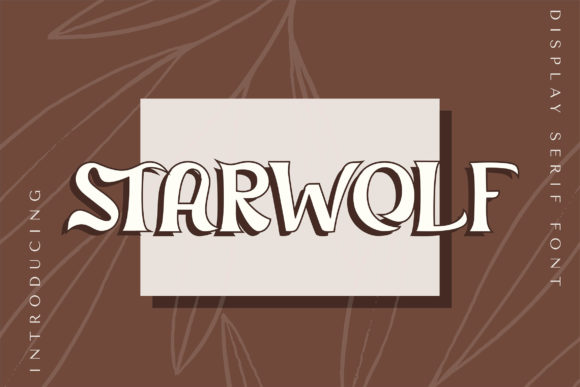
Embark on a typographic odyssey with Starwolf, the display font that exudes coolness and chicness. This font will be a dazzling companion for your creative journey, ready to transform your designs into captivating masterpieces.
Starwolf's PUA encoding grants you effortless access to a vast array of glyphs and swashes, unlocking endless possibilities for customization. With Starwolf, your creative expression knows no bounds.
This font is more than just a collection of characters; it's a gateway to a world of captivating designs. Whether you're crafting logos, posters, social media graphics, or simply adding a touch of flair to your presentations, Starwolf will elevate your creations to new heights.
Imagine your words dancing across the page, imbued with the distinctive personality of Starwolf. Its sharp edges and dynamic curves command attention, while its balanced proportions ensure readability. Starwolf is not just a font; it's a statement of style, a reflection of your unique aesthetic.
With Starwolf, you'll discover a font that's as versatile as it is captivating. Its adaptability shines in a multitude of contexts, from modern and minimalist designs to bold and unconventional projects. Starwolf effortlessly complements your creative vision, seamlessly�入ing itself into any design landscape.
Join the ranks of discerning designers who have embraced Starwolf's allure, harnessing its power to create designs that leave a lasting impression. Starwolf is not just a font; it's an investment in your creative arsenal, a tool that will empower you to consistently produce stunning visuals.
As a designer, you're always seeking that one font that can transform your vision into reality. Starwolf is that font. It's the key to unlocking your creativity, the catalyst for designs that ignite imaginations.
Don't let mundane fonts hold your creativity captive. Embrace the brilliance of Starwolf and watch your designs take flight.